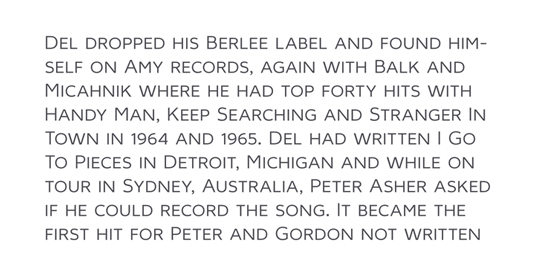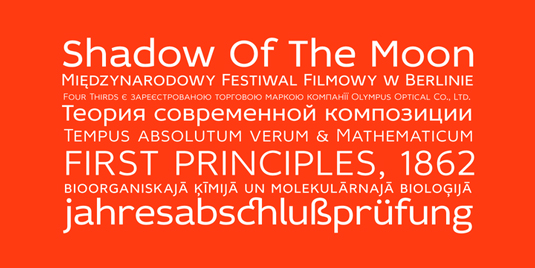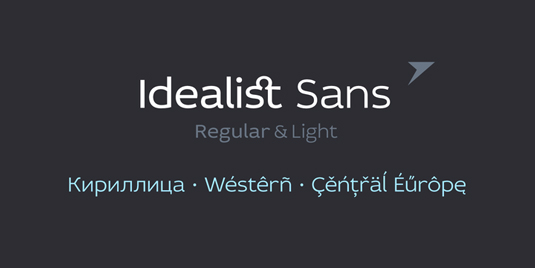
Font of the day: Idealist Sans
Every day we showcase the best fonts on the web. Today it's Idealist Sans by Elena Kowalski, which is totally free to download.
Idealist Sans by Elena Kowalski
Today's typeface of choice is sans serif Idealist Sans, created by designer Elena Kowalski. Available in two weights, regular and light, the display typeface is available as a free download from Fontfabric.